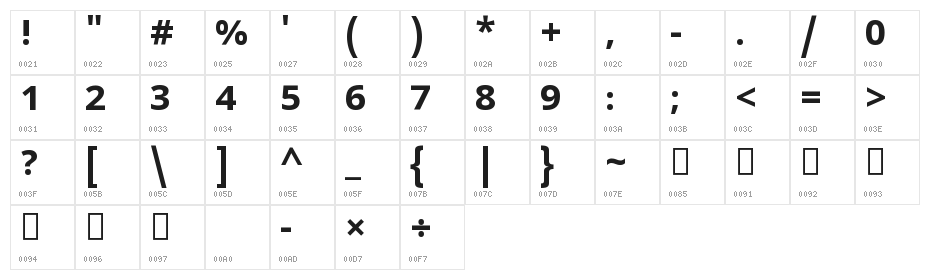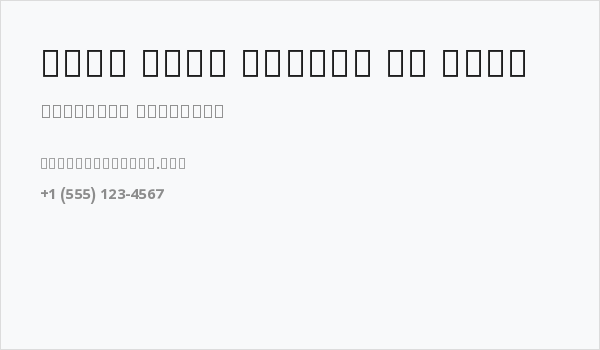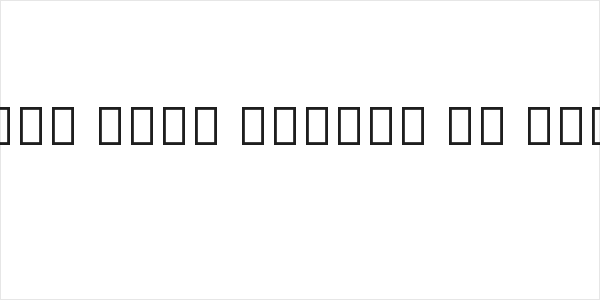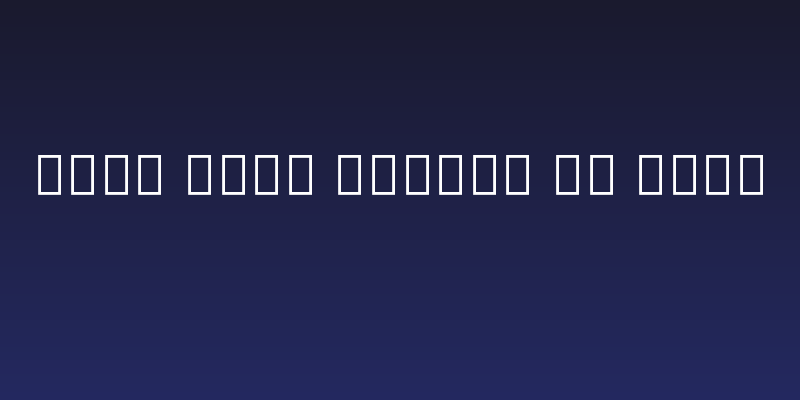
Noto Sans Telugu UI Bold Font
This font features a clean and modern sans-serif design, characterized by its bold weight and straightforward geometric shapes. The characters are well-proportioned, offering excellent readability and clarity. The numerals are distinct and easy to distinguish, making them suitable for both digital and print media. The special characters are designed with the same attention to detail, ensuring consistency across the entire typeface. This font is versatile, suitable for a wide range of applications from user interfaces to signage.
| Proposed Projects | Ideal for user interfaces, digital content, signage, and branding materials. |